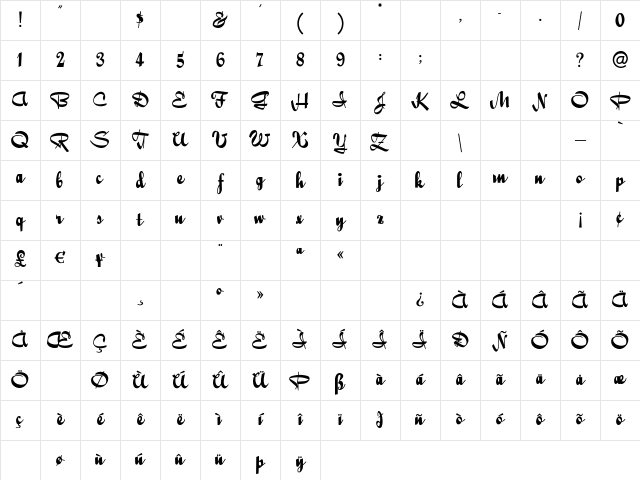
QuigleyWiggly Regular Free Font
QuigleyWiggly Regular
Design Context for QuigleyWiggly
QuigleyWiggly is a composed and adaptable typeface that performs quietly and consistently across a wide range of design contexts.
Pro Tip: Use QuigleyWiggly in both headline and body roles to test its range before committing to a single application.